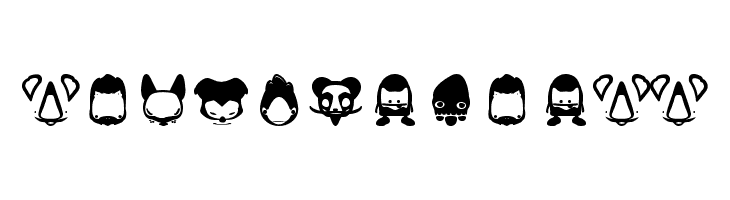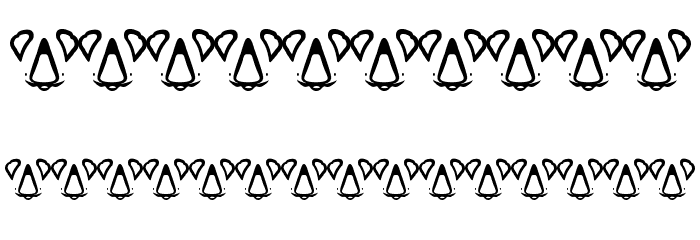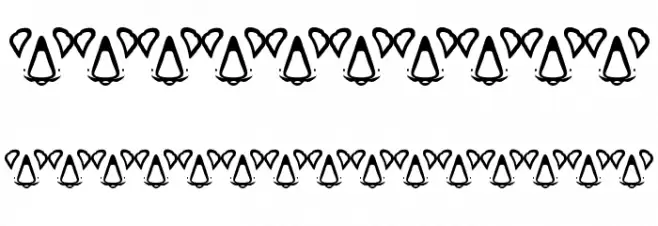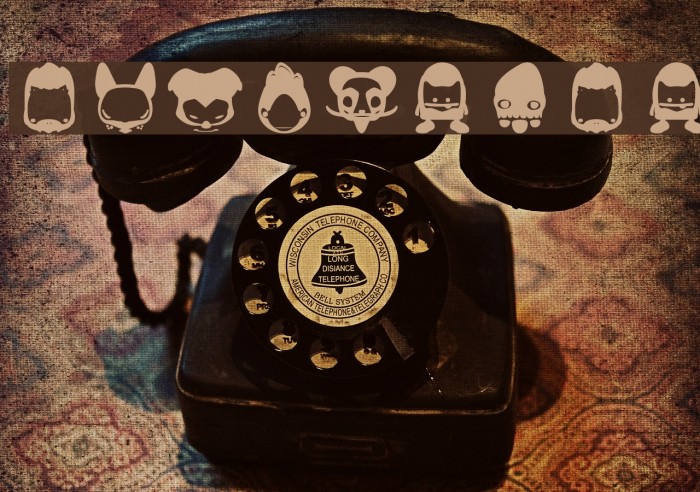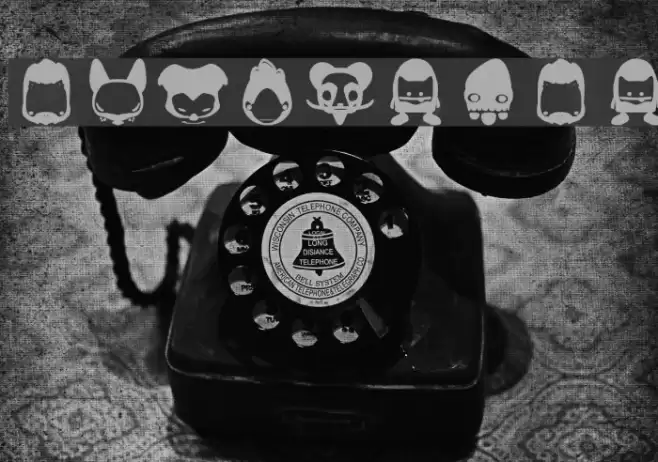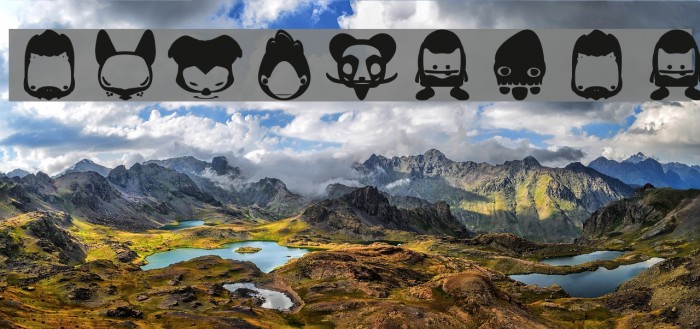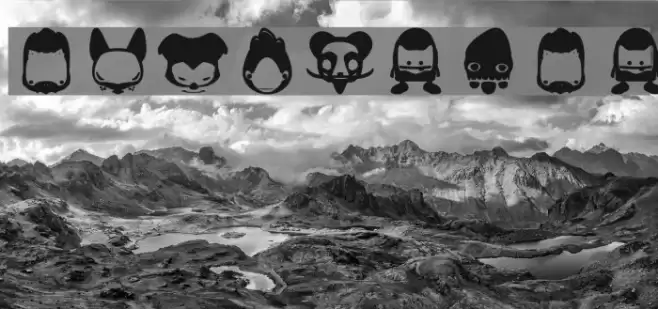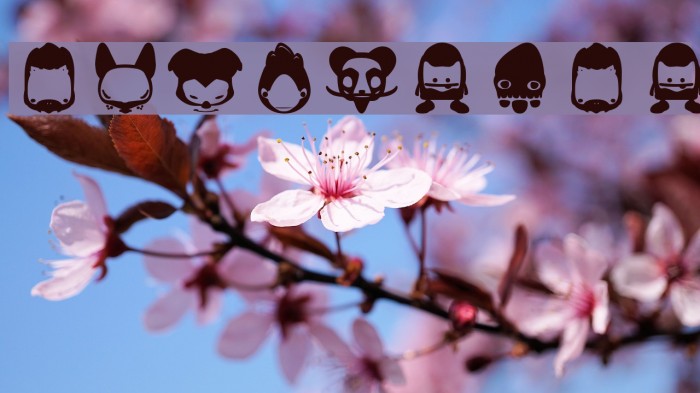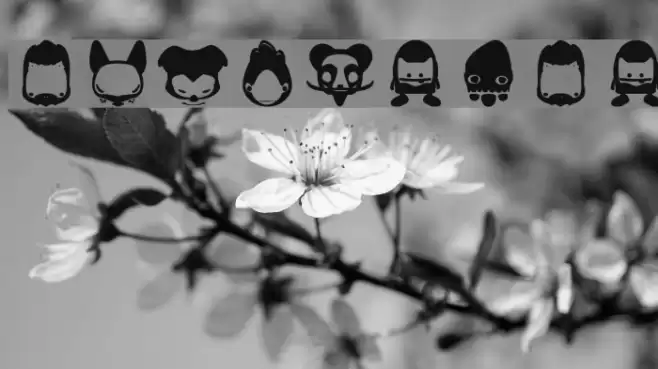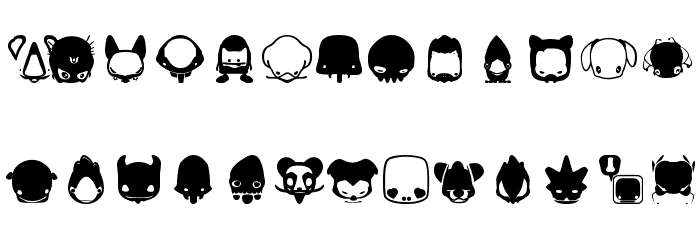
Pictoserie 2 Font
Pictoserie 2 Description
A playful and decorative dingbat font featuring a variety of whimsical cartoon animal and character faces, with consistent bold outlines and a hand-drawn, quirky style. The glyphs are highly stylized and not traditional alphanumeric characters.
| Overall Style | Playful, Whimsical, Decorative |
| Use Case | Decorative elements, Borders, Themed graphics |
| Proposed Projects | ChildrenΓ’β¬β’s books, party invitations, playful branding, stickers, scrapbooking, educational materials. |